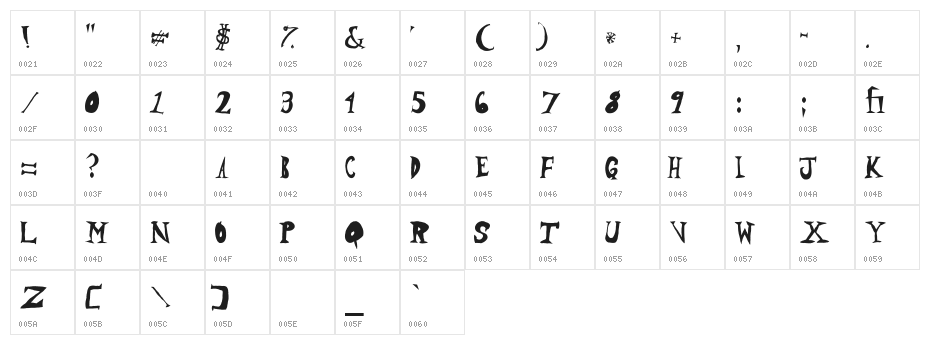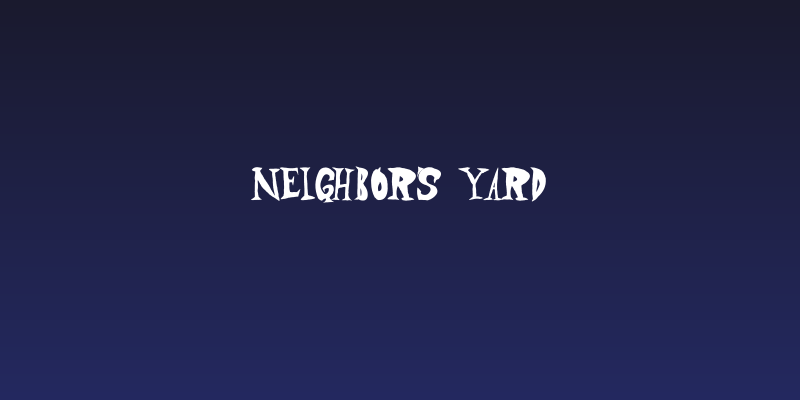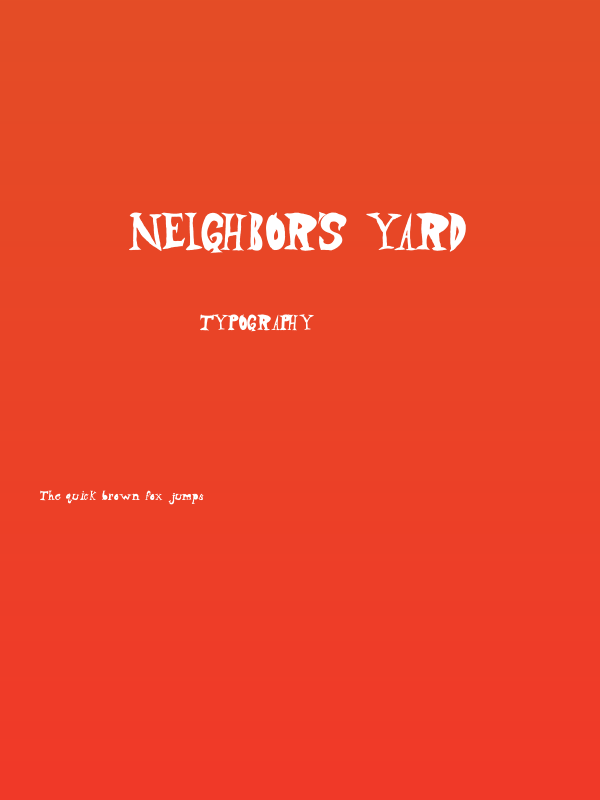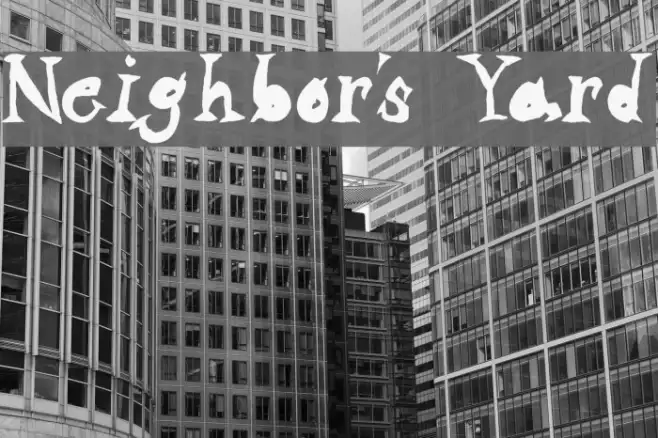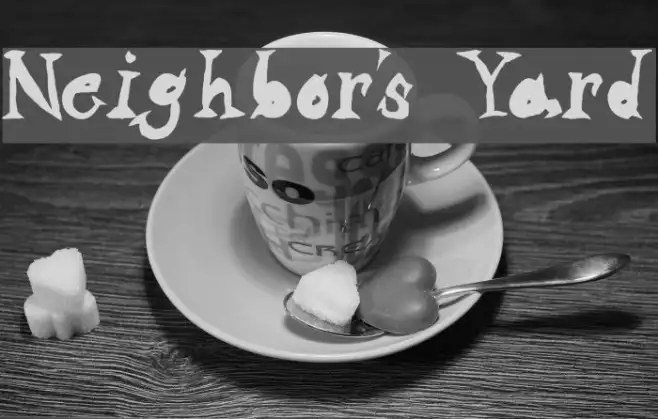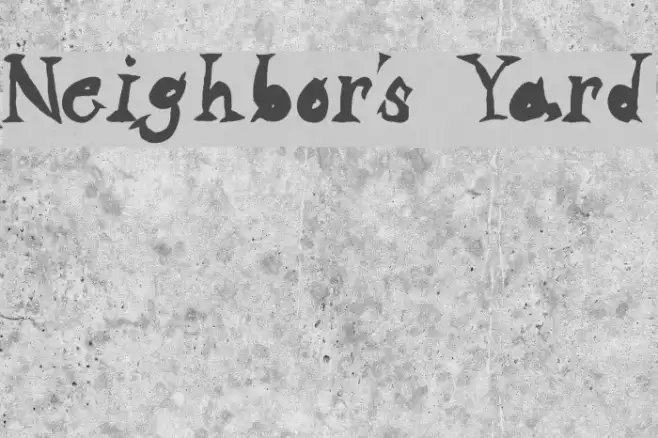
Neighbor's Yard Font
Neighbor's Yard Description
This font features a quirky, playful design with irregular, jagged edges and a hand-drawn appearance. The characters vary in width and height, giving it a dynamic and spontaneous feel. The uppercase letters are bold and prominent, while the lowercase letters maintain a consistent style with slight variations in stroke thickness. The numbers and special characters follow the same whimsical style, adding to the font's overall charm. Its unique and artistic design makes it suitable for creative and informal projects.
| Proposed Projects | Ideal for Halloween-themed designs, children's book covers, playful posters, and creative branding. |